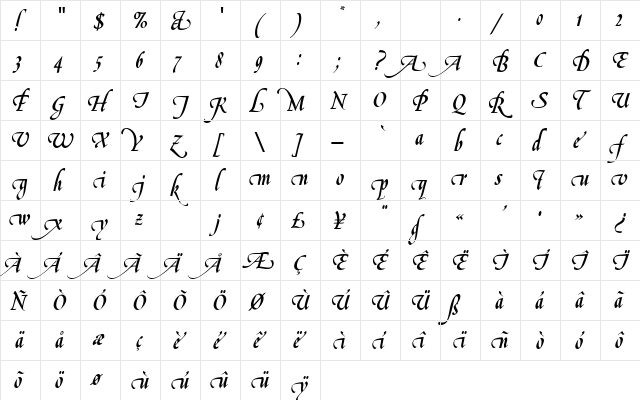
LeGriffeEFAlternateOne Regular
Design Context for LeGriffeEFAlternateOne Typeface
LeGriffeEFAlternateOne is a composed and adaptable typeface that performs quietly and consistently across a wide range of design contexts.